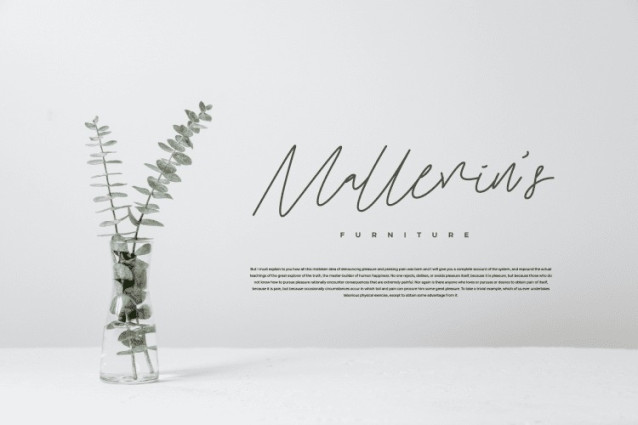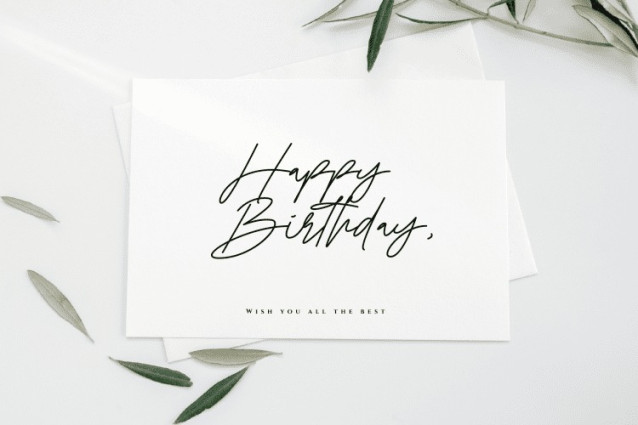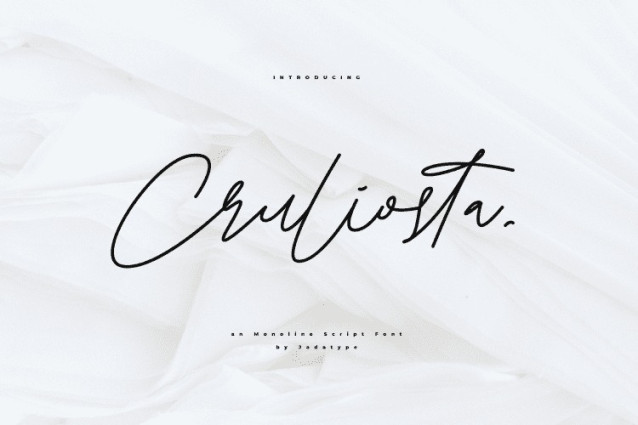
Cruliosta Handwritten Font
Cruliosta Handwritten Font is a stylish and dainty handwritten script font. It has a classy, elegant, and modern look that can be used for logos, branding, invitations, stationery, wedding designs, social media posts, and much more!